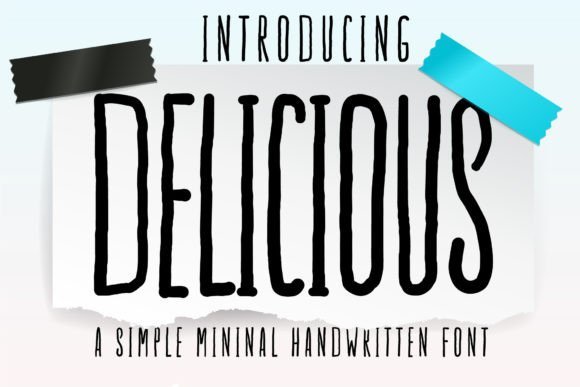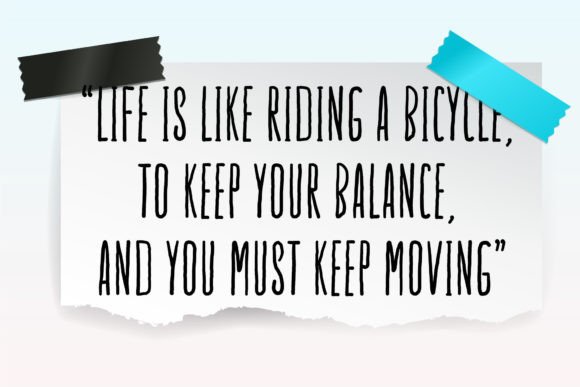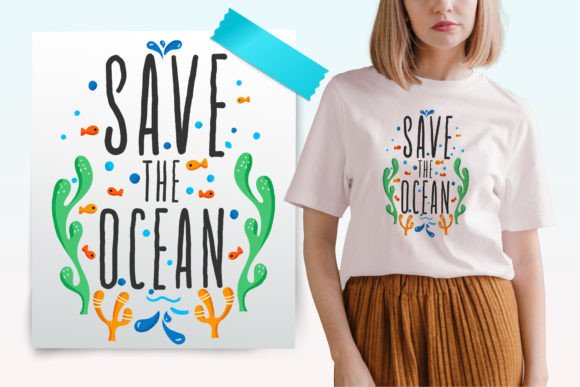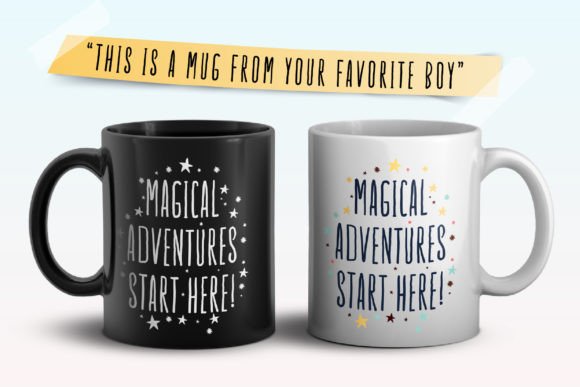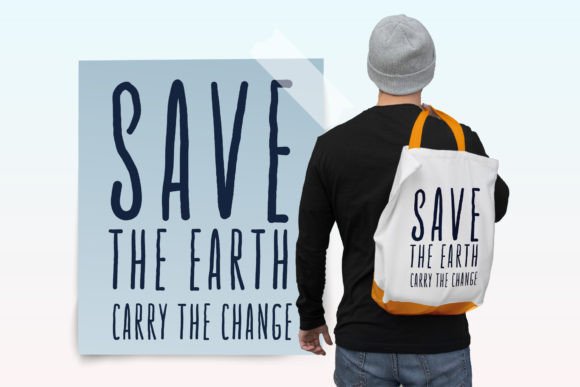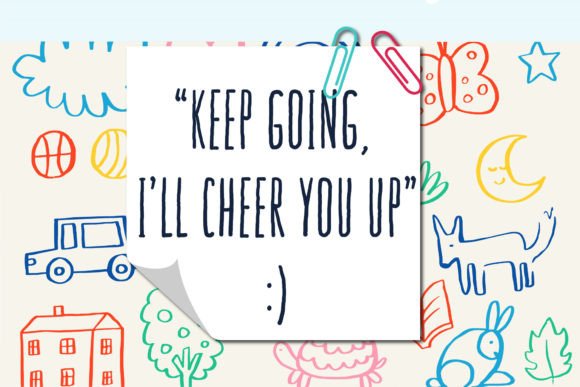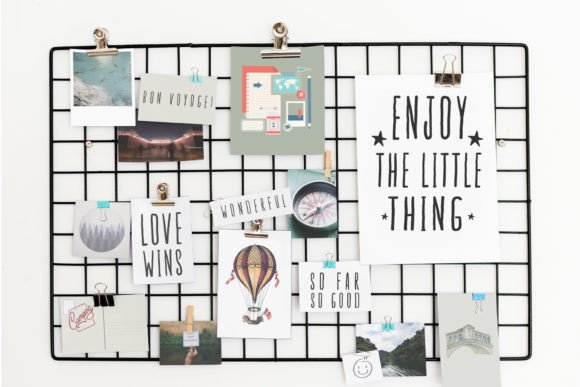
Discover the Recipe for a Delicious Design
As designers, we’ve all been there – staring at a blank canvas, trying to come up with the perfect concept for a new project. The blank page stares back, taunting us with its emptiness. But what if I told you that the secret ingredient to a delicious design is just a few clicks away? Enter the Delicious Font, a charming and versatile handwritten typeface that adds a touch of warmth and personality to any design.
This font is more than just a pretty face – it’s a valuable tool for designers looking to bring a contemporary feel to their projects. With its clean lines and subtle elegance, Delicious Font makes it easy to create designs that are both visually appealing and easy to read. Whether you’re working on branding, invitations, or social media graphics, this font is sure to be a hit.
Delicious Font Key Features
- Font Family: Delicious Font is a sans-serif font family designed to be modern and clean.
- Language Support: Supports over 100 languages, including Latin, Cyrillic, Greek, and many more, making it a versatile choice for global audiences.
- Unique Characteristics: Features a distinctive x-height, optimized for readability on digital screens, and a carefully crafted letterform design for maximum legibility.
Delicious Font Review
Delicious Font is a unique and playful font that’s perfect for capturing the essence of food and dining. I love the whimsical touch it adds to any design project ✨. The font’s organic and hand-drawn feel makes it ideal for creating a warm and inviting atmosphere.
The Delicious Font comes with a wide range of characters, including accents and diacritical marks, making it suitable for use in multiple languages ✨. The font also supports a variety of weights and styles, from light to bold, allowing designers to experiment with different looks and feels.
Here are some of the key features of the Delicious Font:
- Unique and playful design ✨
- Hand-drawn feel with a touch of whimsy
- Wide range of characters, including accents and diacritical marks
- Supports multiple languages
- Available in various weights and styles
While the Delicious Font is a great addition to any design library, there are a few limitations to keep in mind ⚠️:
- Not ideal for formal or corporate designs
- May not be suitable for small text sizes due to the organic feel
Overall, I think the Delicious Font is a great choice for designers looking to add a touch of personality to their work ✨. While it may not be suitable for every project, its unique design and versatility make it a valuable addition to any design library.
The “Delicious Font” is ideal for use in food-related designs, such as recipe books, restaurant menus, and food blogs. It’s also great for use in creative projects that require a playful and casual tone, such as invitations and social media graphics.